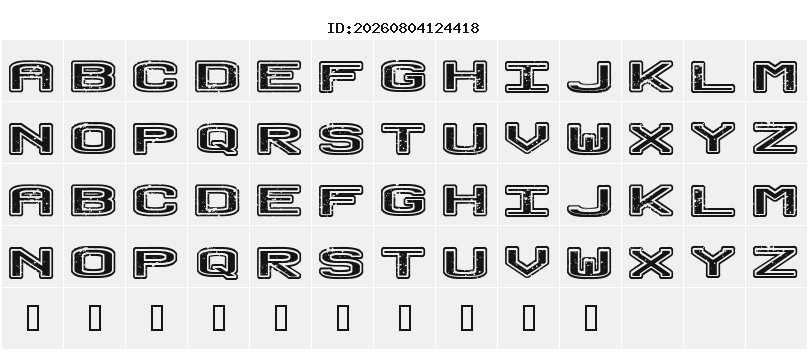
No Honor Roll Preview
• Font Name: No Honor Roll
• Designer: chris vile
• Manufacturer: chi media fonts
• Description: No Honor Roll Regular is a font by chi media fonts, designed by chris vile in 2012.
About No Honor Roll.ttf
No Honor Roll.ttf is a modern, elegant sans-serif font designed for ultimate readability and visual harmony. Perfect for branding, headlines, web design, and print materials.